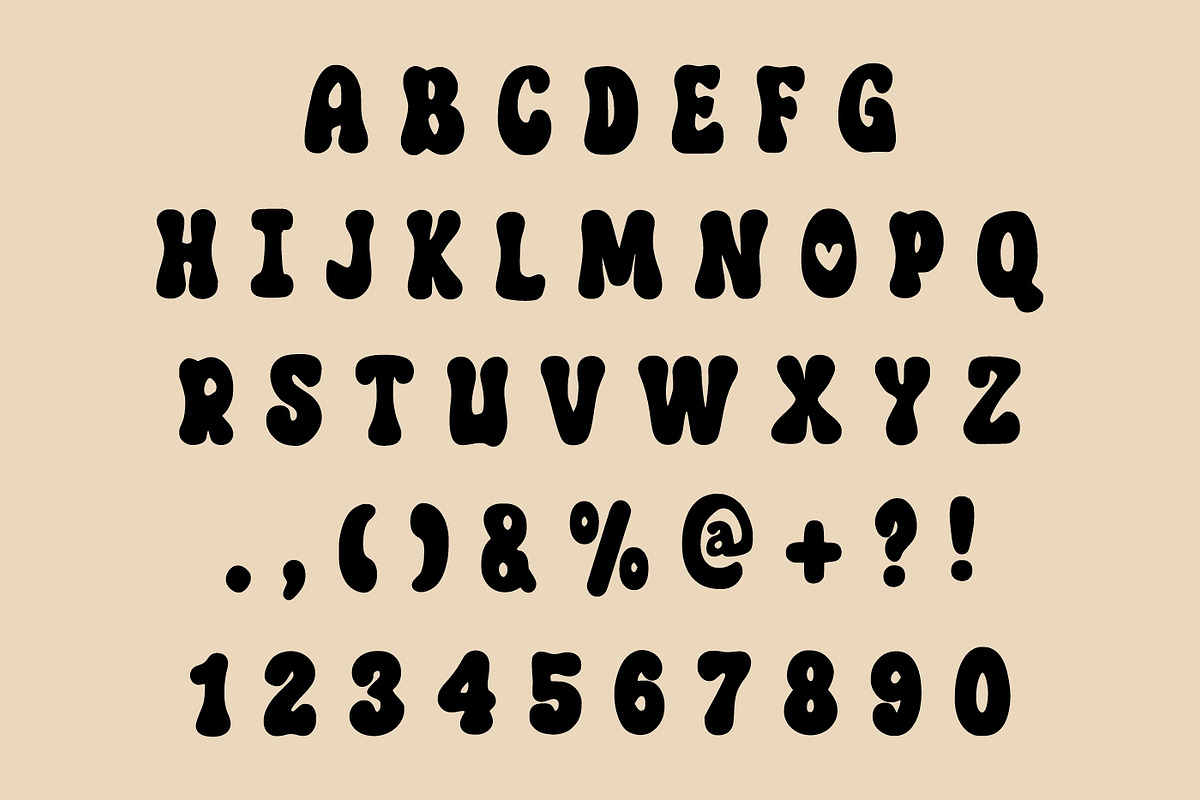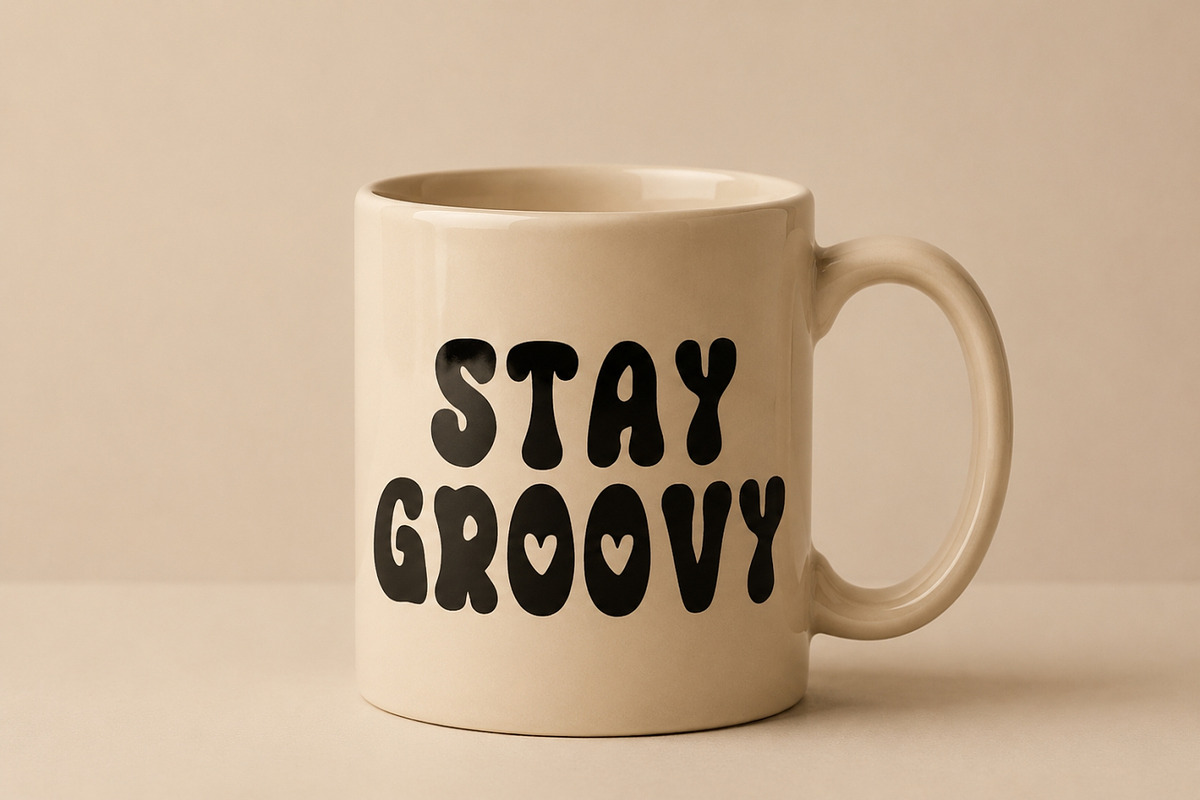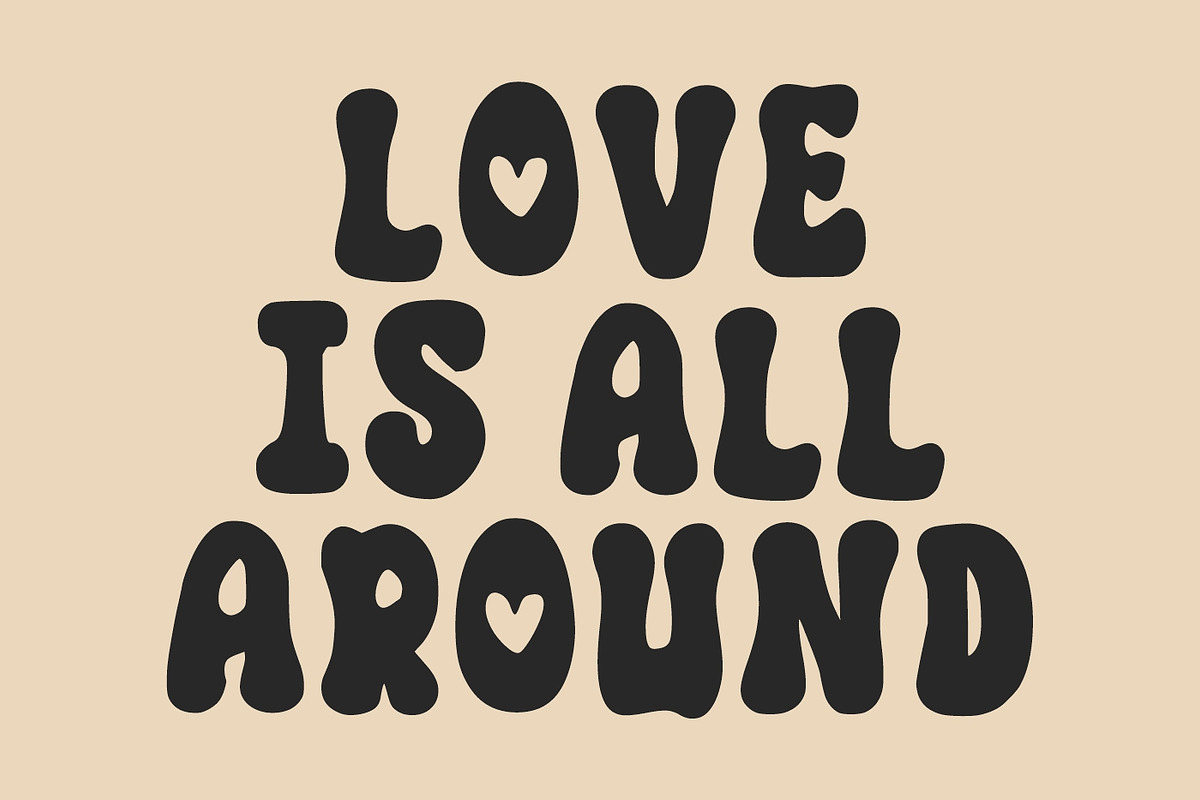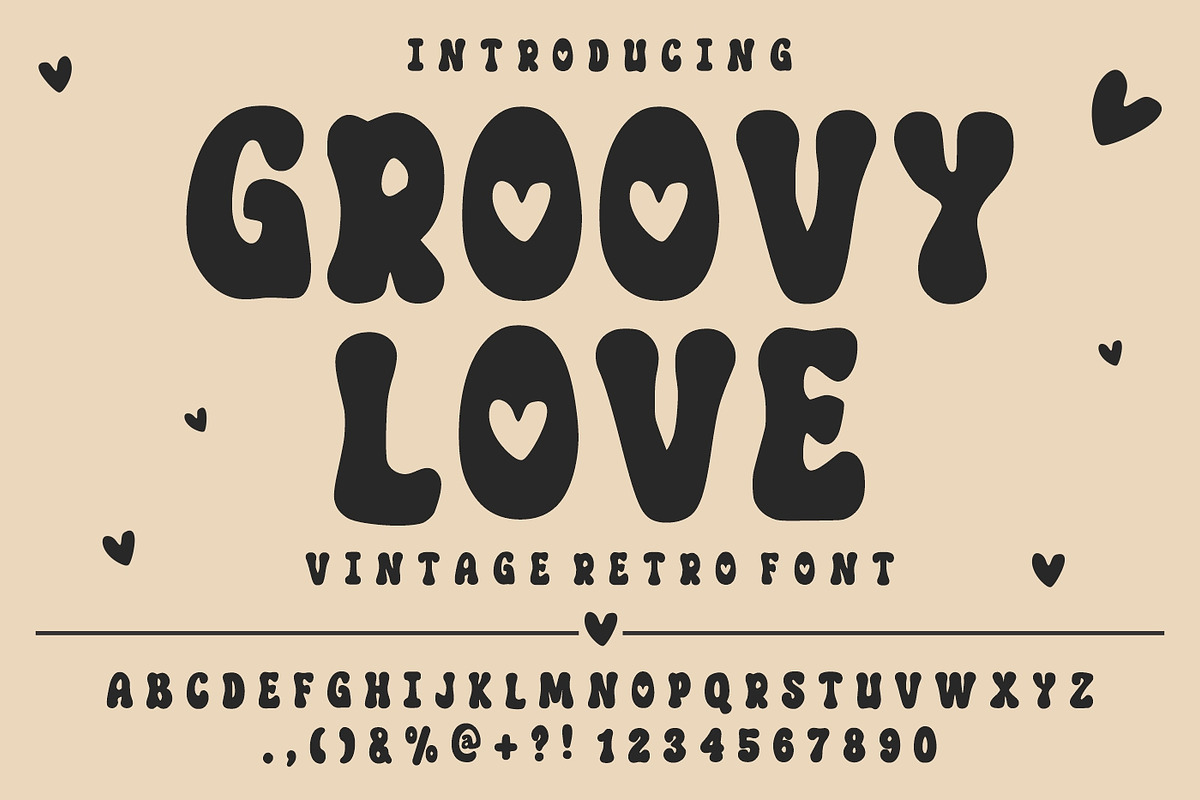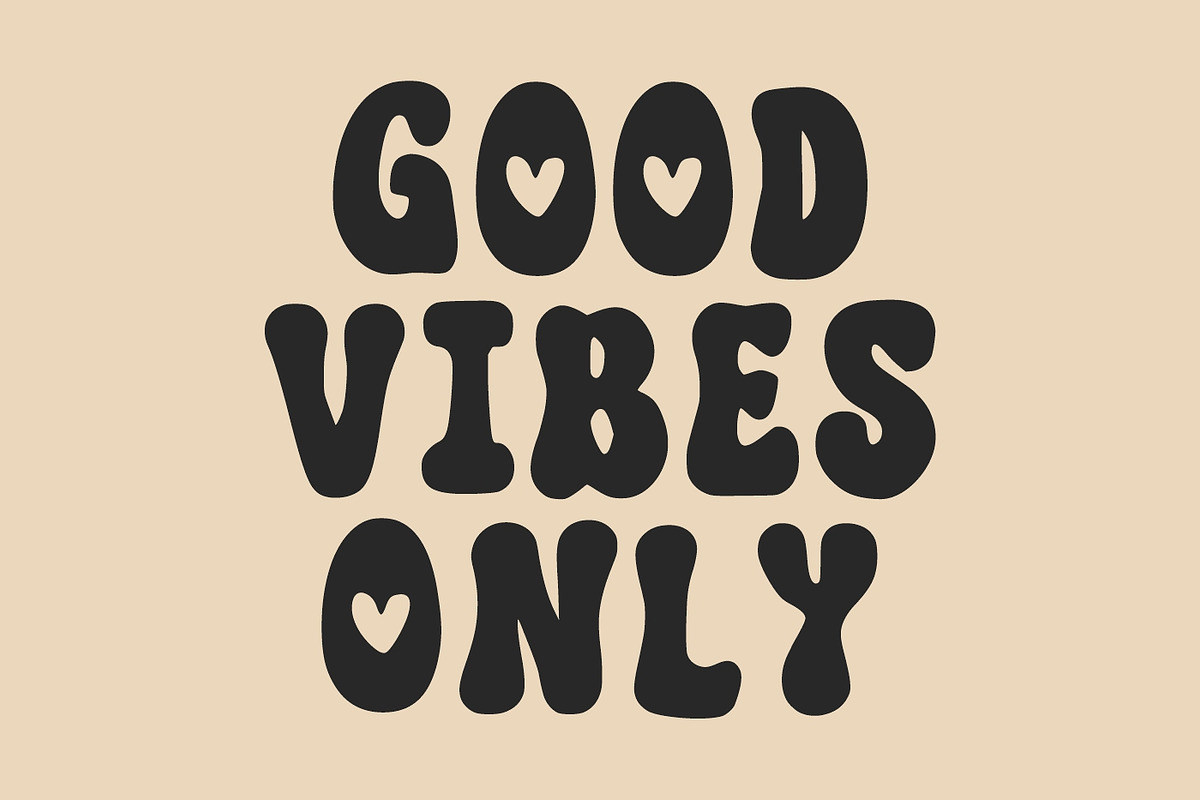
Groovy Love
Groovy Love is a playful retro-inspired display font that combines vintage charm with a sweet and romantic personality. Featuring bold, chunky letterforms, soft organic curves, and adorable heart-shaped details, this font instantly brings warmth, happiness, and nostalgic vibes to any creative project.
Inspired by the iconic typography of the 60s and 70s, Groovy Love captures the spirit of retro design while adding a modern, cute aesthetic that feels fresh and trendy. The thick rounded characters create a strong visual presence, making it perfect for eye-catching headlines, branding, packaging, posters, and social media graphics.
Whether you’re designing Valentine’s Day products, wedding invitations, greeting cards, stickers, apparel, tote bags, mugs, scrapbook layouts, or feminine branding projects, Groovy Love adds a fun and lovable touch that stands out beautifully. The decorative heart elements integrated into the characters create a unique personality that makes every word feel charming and heartfelt.
This versatile font works wonderfully with retro color palettes, boho themes, kawaii illustrations, vintage-inspired branding, and modern social media content. Its bold silhouette ensures excellent readability while maintaining a playful handcrafted appearance that designers and crafters will love.
Groovy Love is an excellent choice for creative entrepreneurs, print-on-demand sellers, Cricut users, digital designers, and anyone looking to create memorable designs filled with positivity, affection, and retro flair. From product packaging to event invitations and lifestyle branding, this font transforms ordinary typography into delightful visual statements.
Bring a touch of nostalgia, sweetness, and creativity to your next project with Groovy Love – the perfect retro romantic display font for making designs feel fun, expressive, and unforgettable.